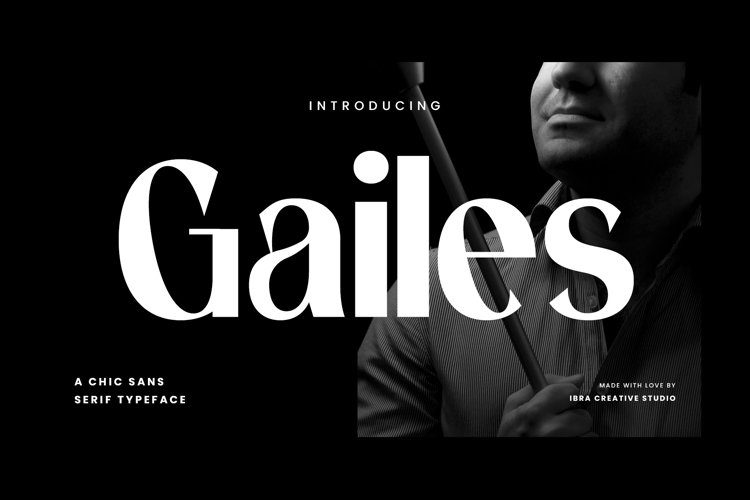
Gailes Font
Gailes, a chic sans-serif typeface, effortlessly blends modern sophistication with a touch of timeless elegance. Its clean lines and well-balanced proportions create a sleek and contemporary aesthetic, making it a versatile choice for a wide range of design applications.